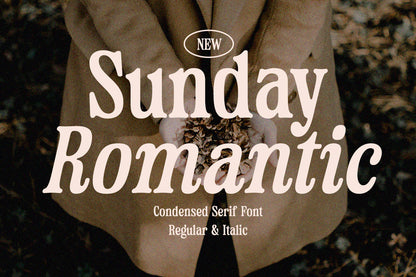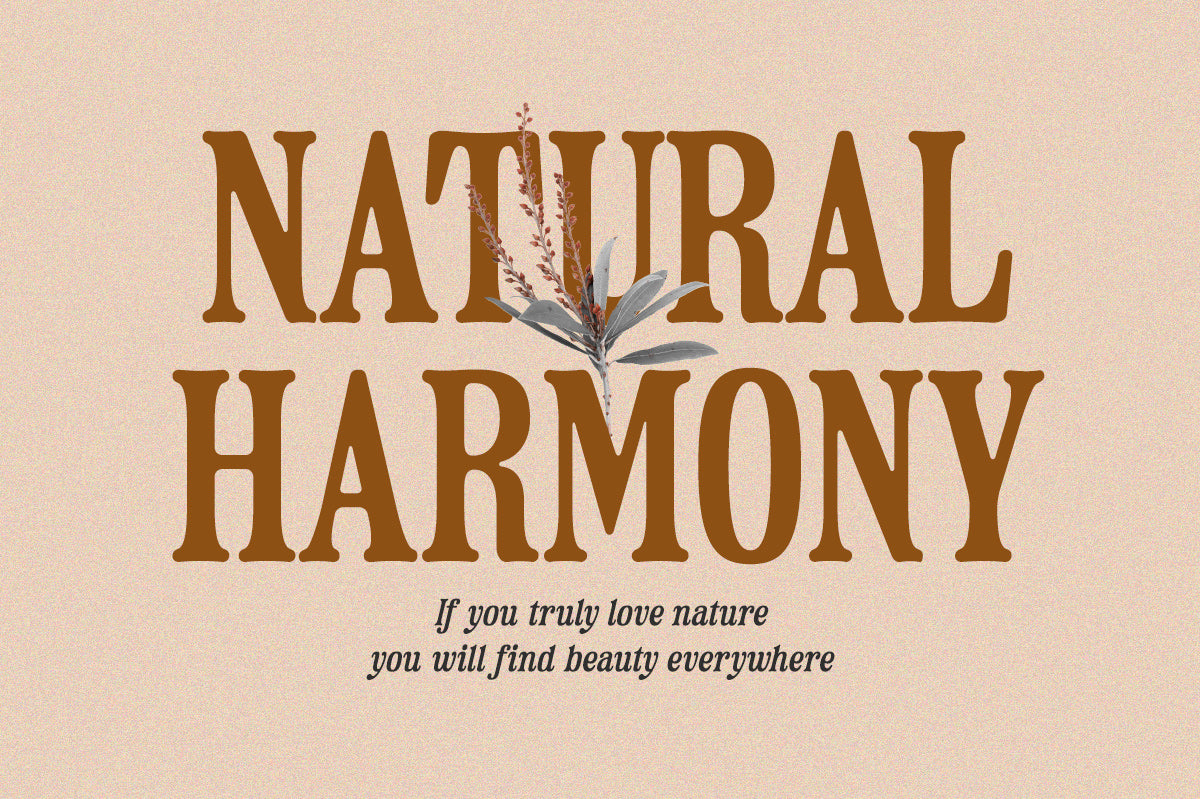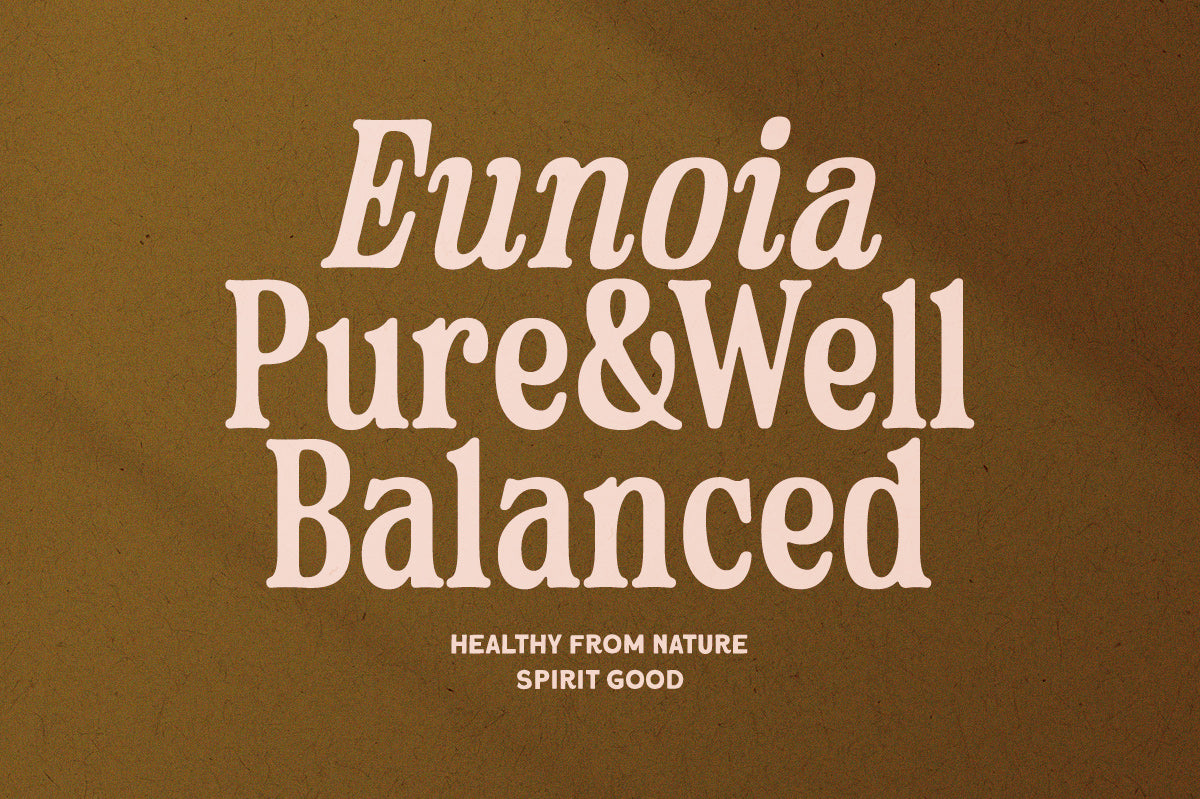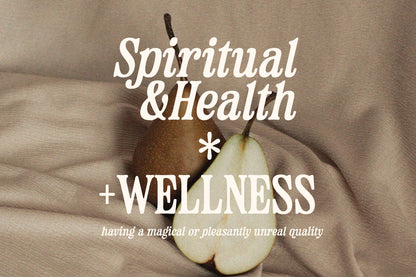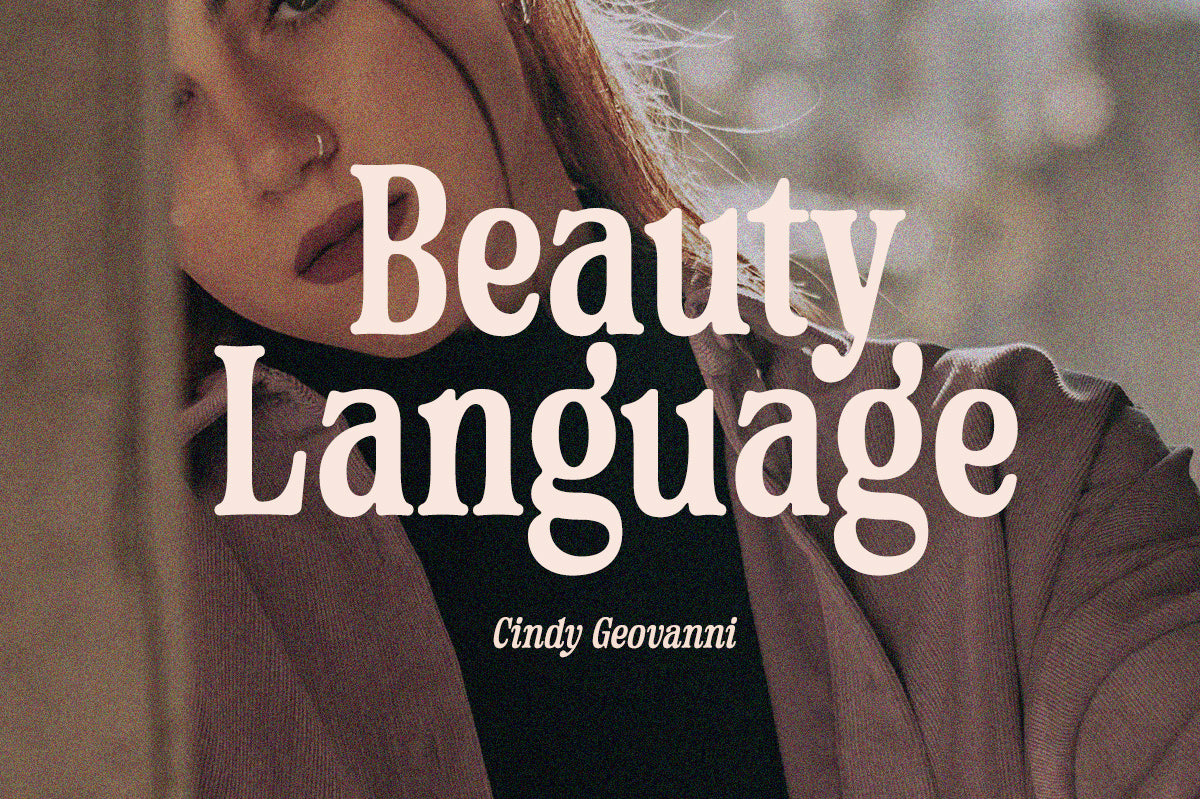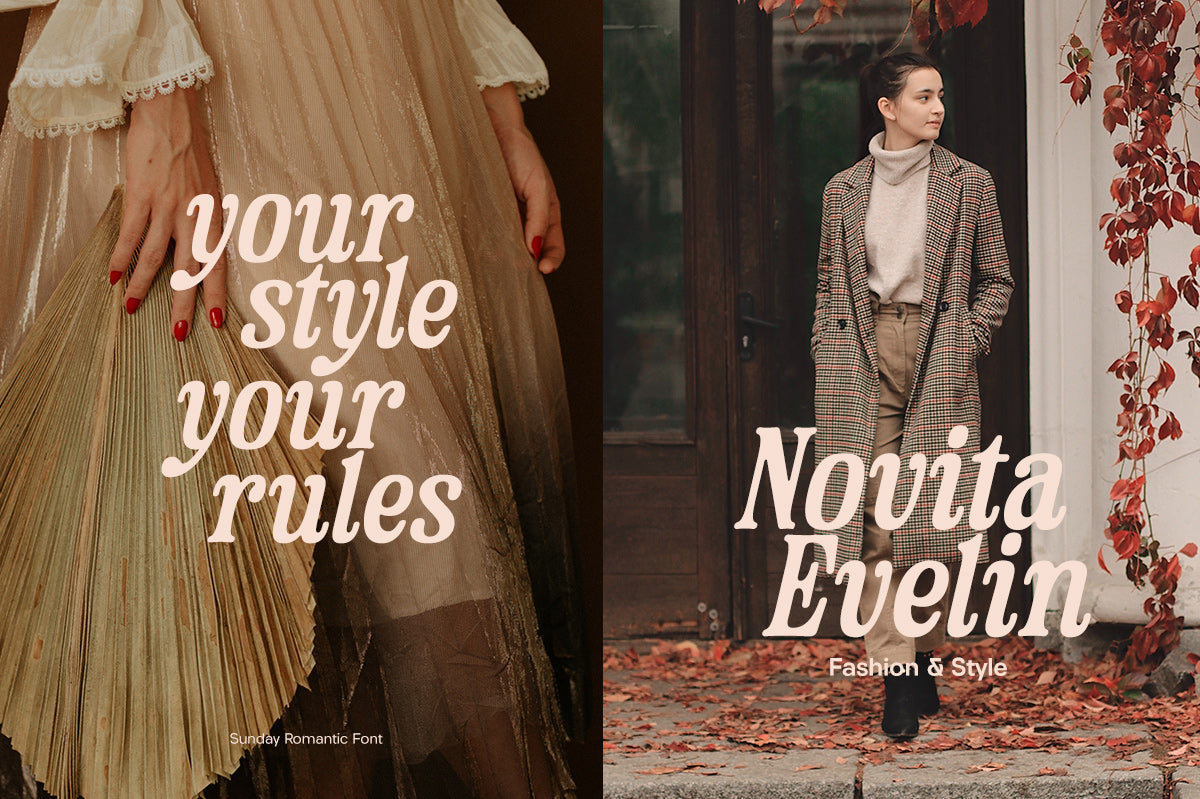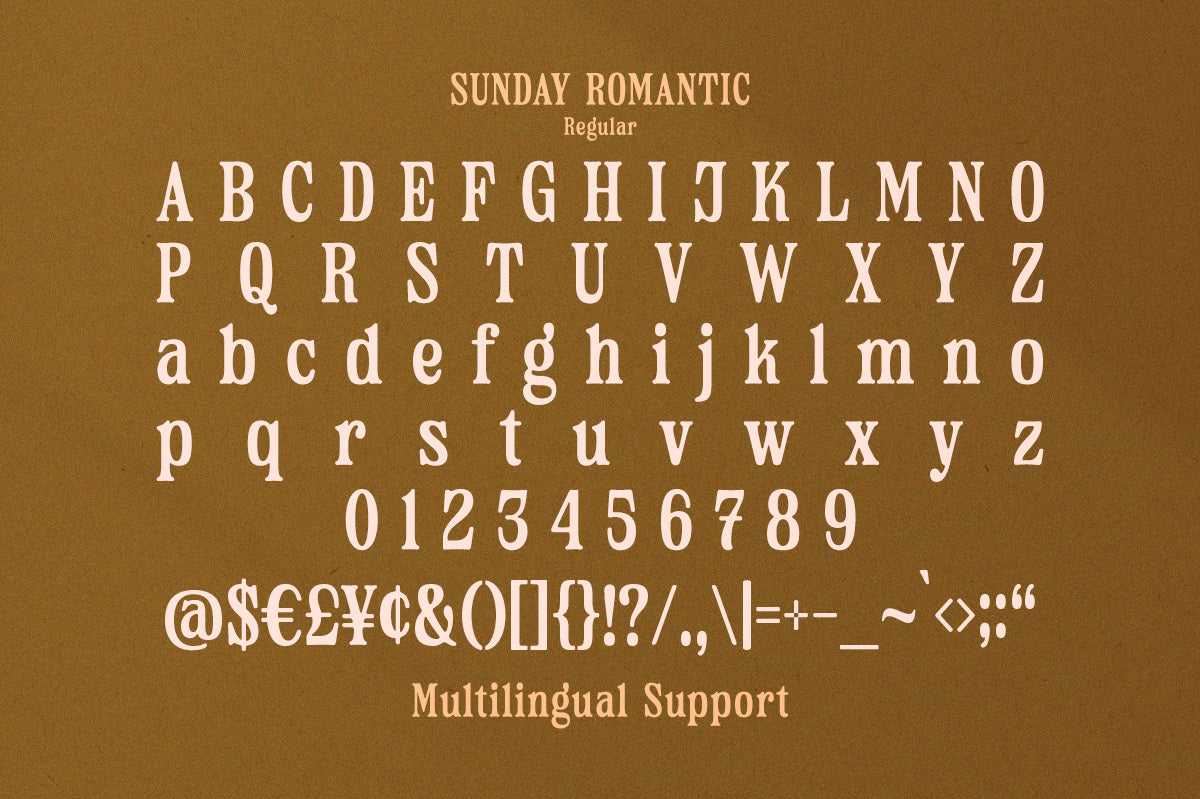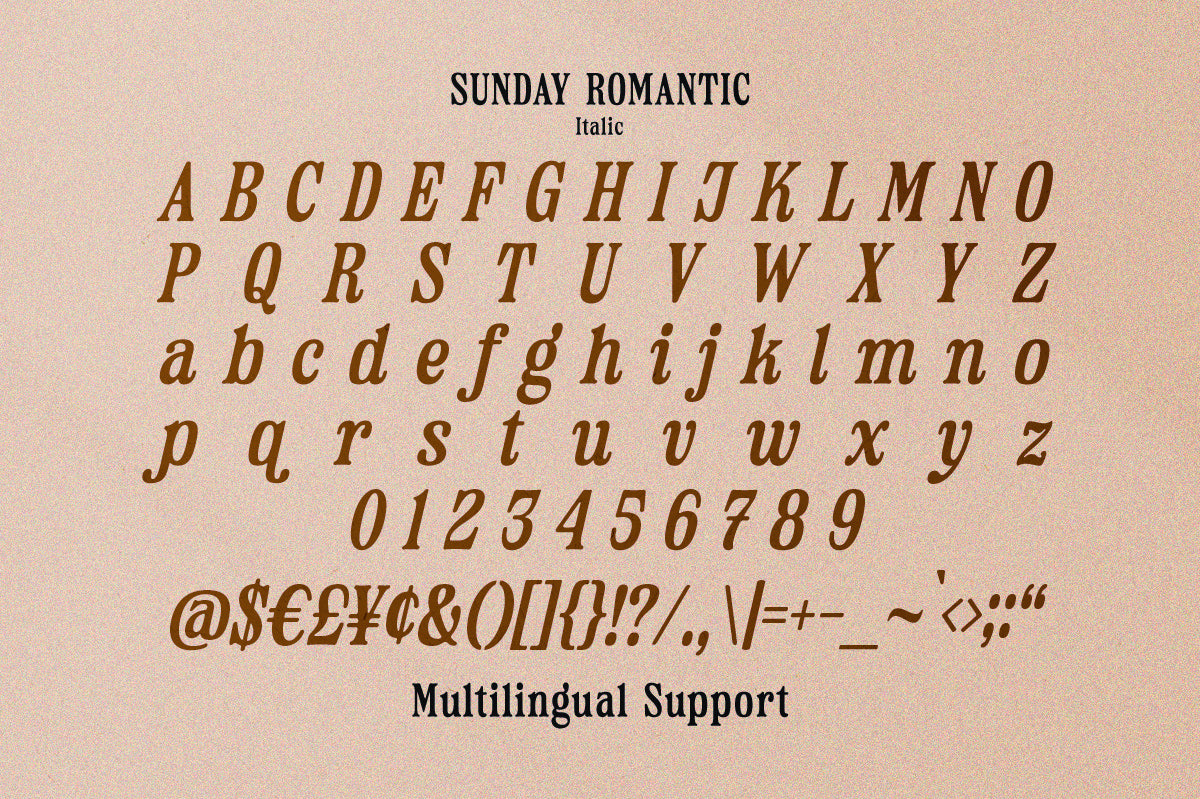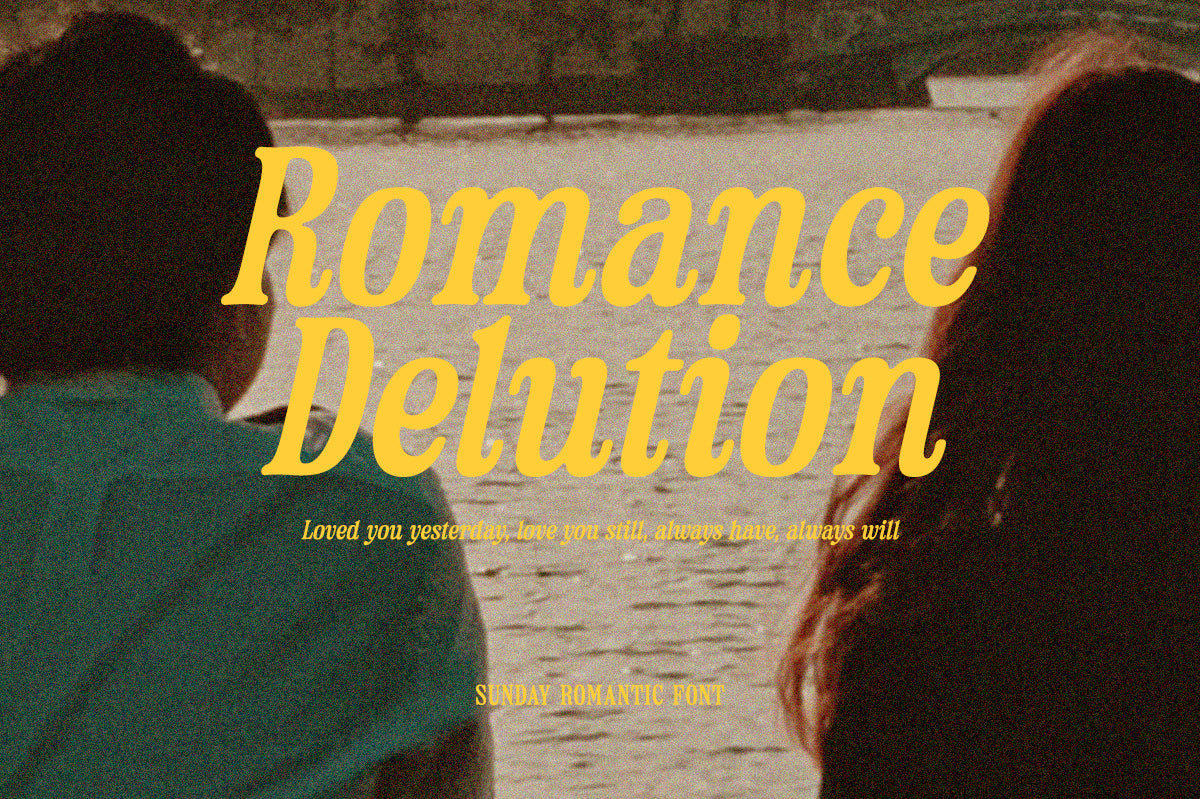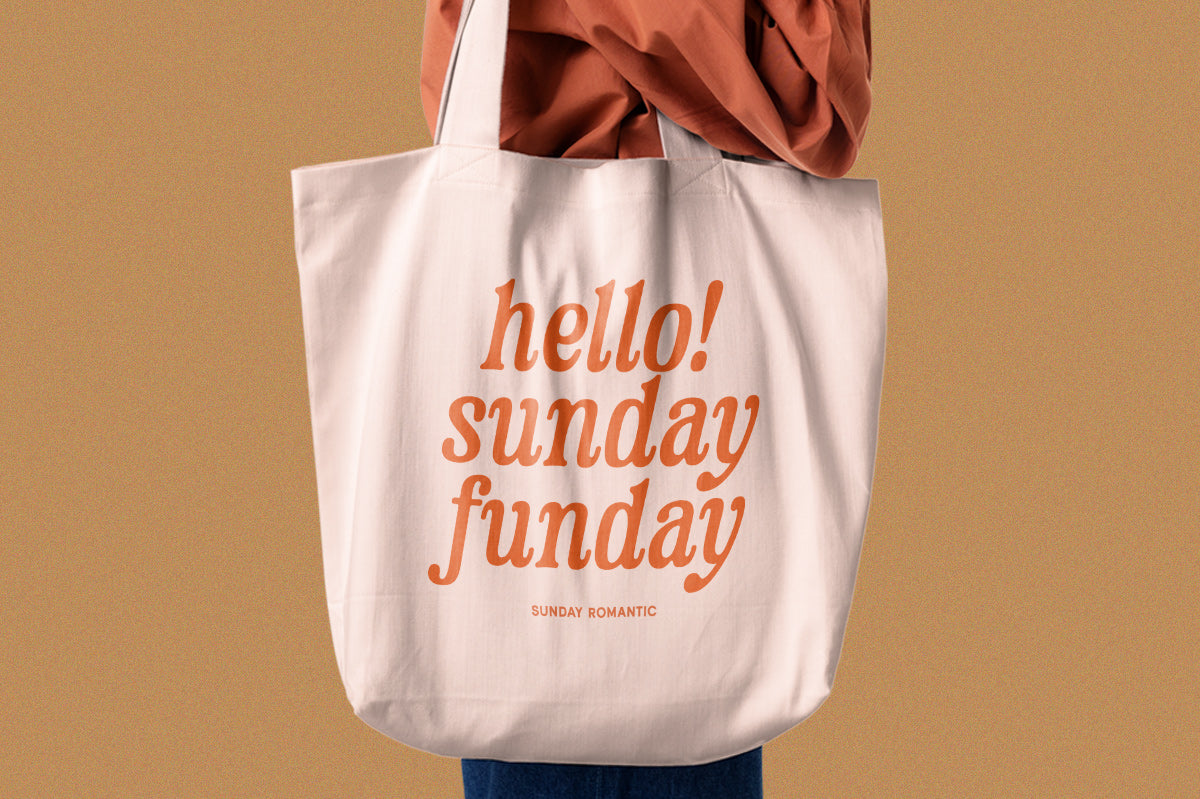
Sunday Romantic
Sunday Romantic - Condensed Serif
Sunday Romantic is a sophisticated condensed serif typeface. Perfectly to be applied to the other various formal forms such as invitations, labels, logos, magazines, books, greeting / wedding cards, packaging, fashion, make up, stationery, novels, labels or any type of advertising purpose.
Regular & Italic style
lowercase uppercase
numbers and punctuation
multilingual
alternates